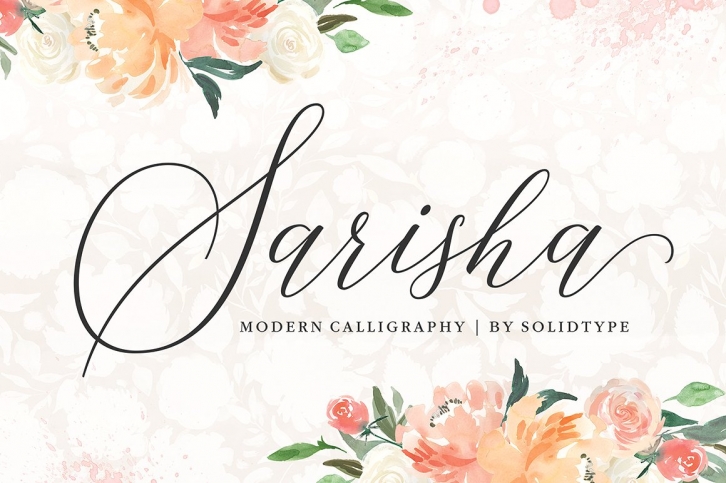
Sarisha is an extremely beautiful and elegant script font, suitable for a wide range of elegant designs and invitationals. This font is a stunner when used as a display, and is a classic font anchored in gracefulness and nostalgia.